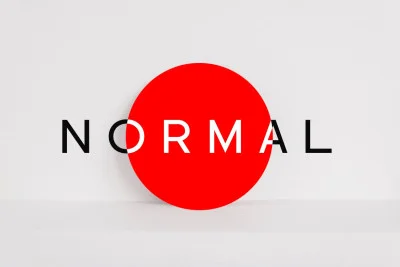
Normal Minimal Sans Serif Typeface Webfonts
Normal Minimal Sans Serif Typeface Webfonts is perfect for clean website designs, minimalist app interfaces, modern corporate branding, streamlined user experience projects, professional documentation, contemporary digital publications, sleek product presentations, tech startup materials, efficient data visualization, and responsive web applications.
What makes this typeface so exciting is its refined simplicity and exceptional functionality that prioritizes clarity and user experience across digital platforms. The Normal Minimal Sans Serif Typeface Webfonts delivers clean, legible letterforms optimized for screen rendering with perfect balance between aesthetic appeal and functional performance, making it an ideal choice for designers building digital products that demand crystal-clear readability and seamless cross-device compatibility.
This optimized font family typically includes multiple weights for comprehensive design hierarchy, true italics for textual emphasis and variation, extensive character sets covering multiple languages and special symbols, professional hinting for optimal screen display at all sizes, and complete webfont formats including WOFF and WOFF2. The Normal Minimal Sans Serif Typeface Webfonts package equips designers with a professional digital typography system that ensures flawless rendering and exceptional readability across all browsers and devices, guaranteeing your web projects communicate with clarity, modern sophistication, and optimal user experience.